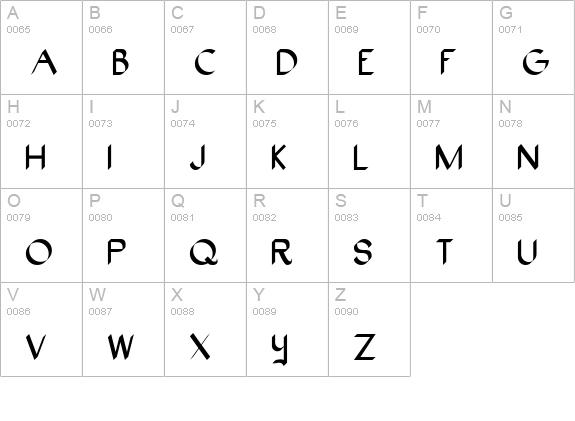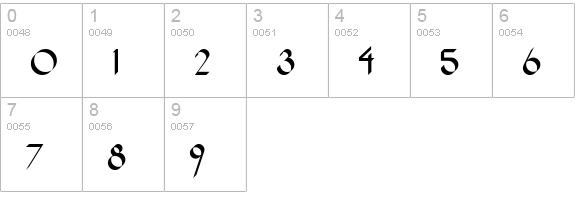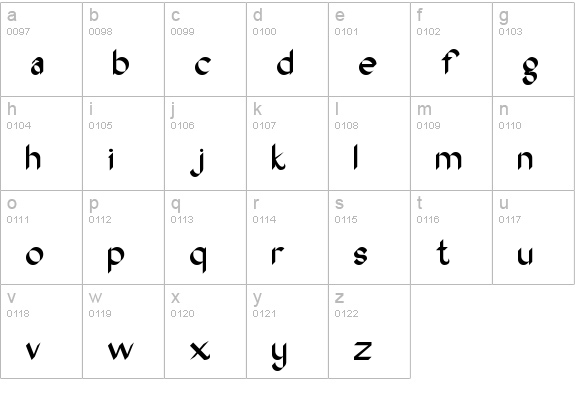
OakWood Font Details
The OakWood font is a timeless and elegant typeface that exudes a sense of sophistication and charm. Its classic and refined design makes it perfect for a wide range of projects, from invitations to branding materials. The OakWood font features beautifully crafted letters with a touch of vintage flair, giving your text a unique and eye-catching appearance. Best of all, the OakWood font is available for free download at FontsMarket.com, making it easily accessible to anyone looking to add a touch of elegance to their designs. Whether you're a seasoned designer or just starting out, the OakWood font is a versatile and stylish choice that will elevate your projects to the next level. Download it today and see the magic it can bring to your work!